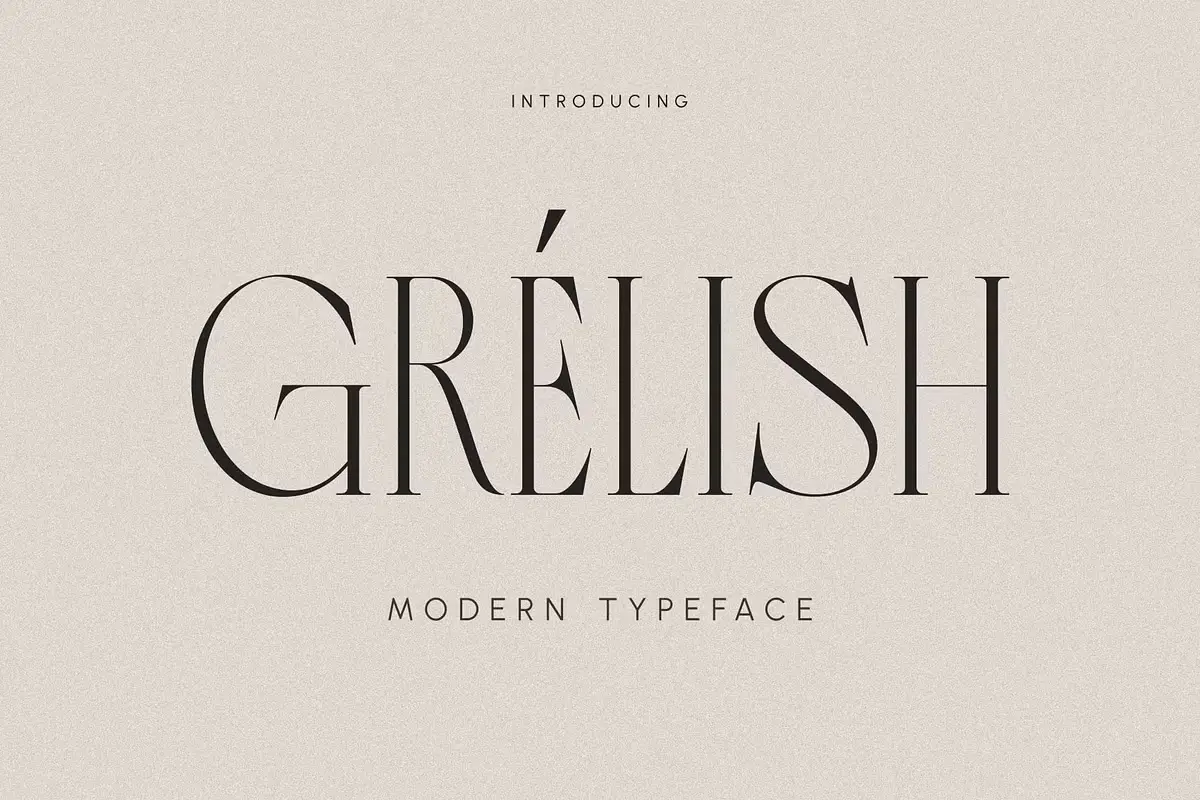
Step into the world of refined elegance with Grelish, a sophisticated free luxurious serif font designed to elevate every aspect of your text. Crafted with meticulous attention to detail, Grelish boasts smooth, well-proportioned serifs that exude timeless luxury. Each letter is a masterpiece of fine lines and perfect curves, conveying stability and perfection with every stroke. Whether used for branding, editorial design, or invitations, Grelish brings an exclusive touch to any project, infusing it with an unmistakable sense of prestige and sophistication
Grelish – Free Luxurious Serif Font